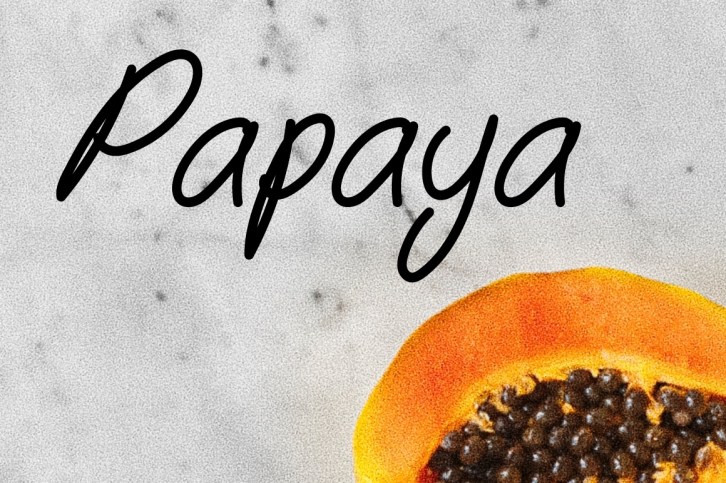
Curved Pen is a handwritten font. This soft font will look great on any design idea. It will add a fun and romantic touch to any of your projects. Perfect for t-shirts, car decorations, award certificates, cup labels, and more.
Suitable for all your works, such as t-shirts, banners, shop names, movie titles, business cards, invitation cards, and others.